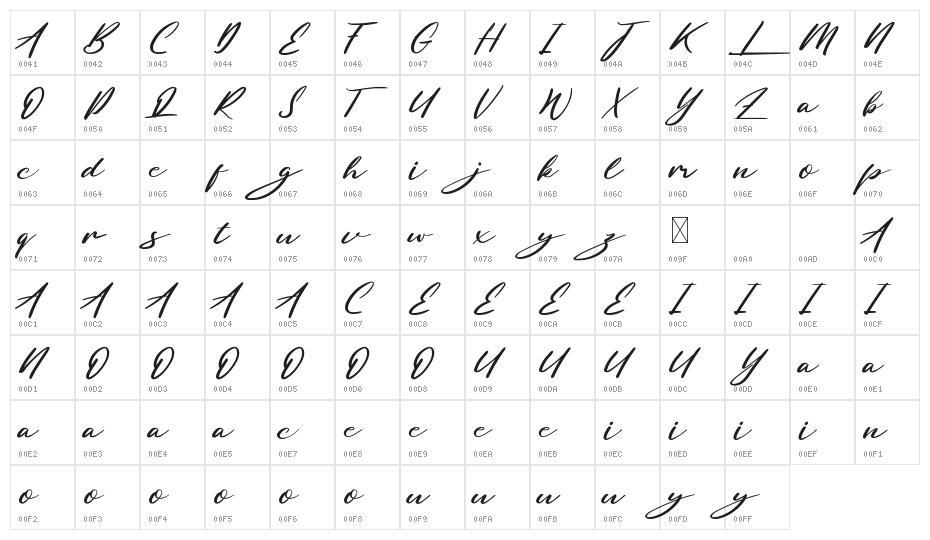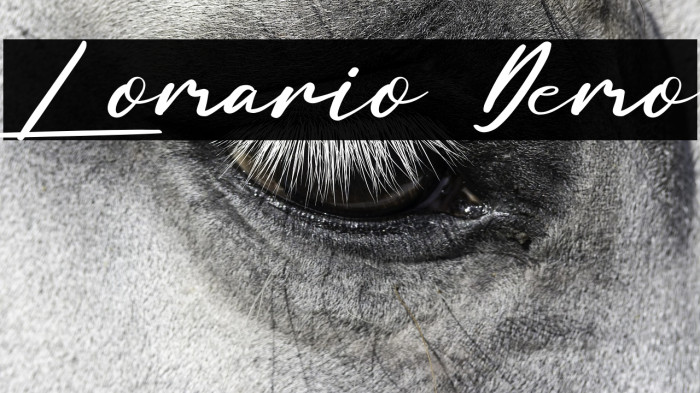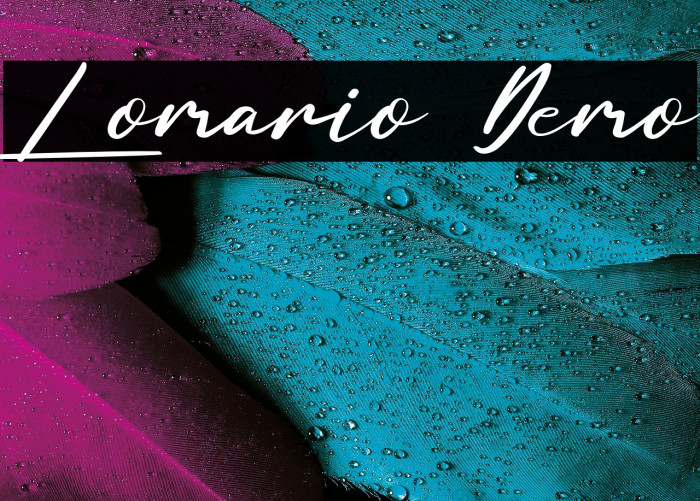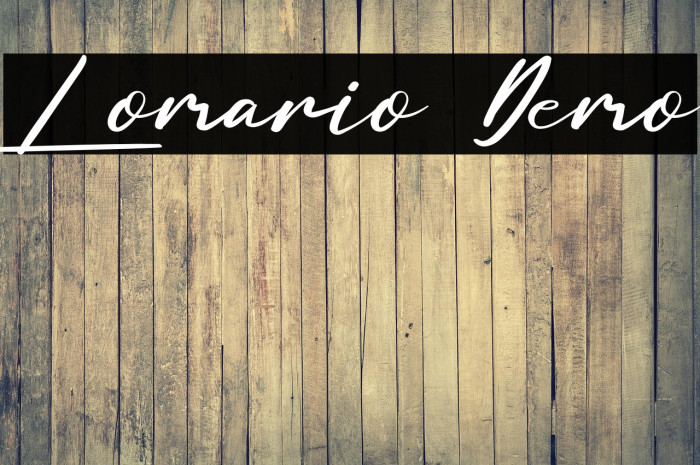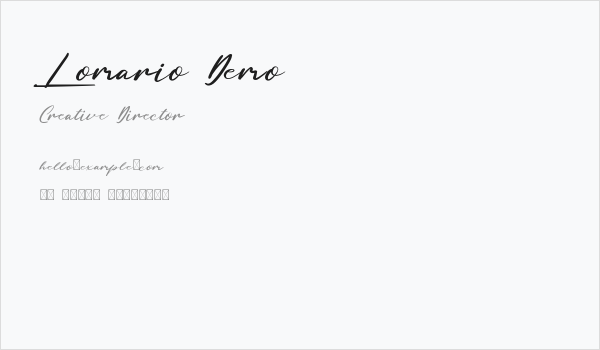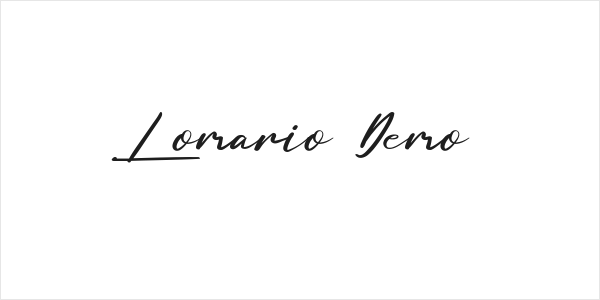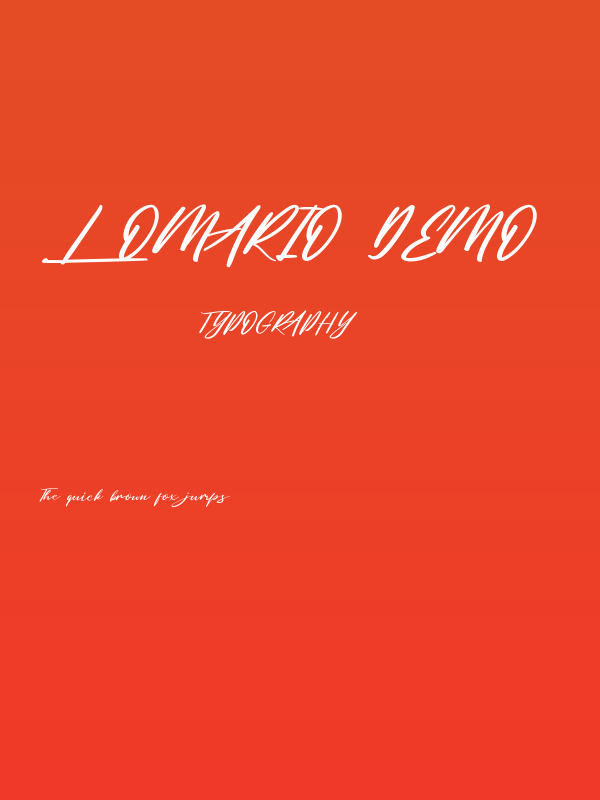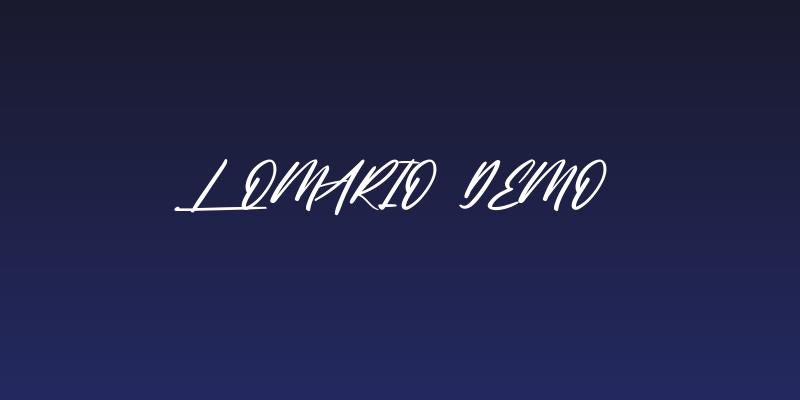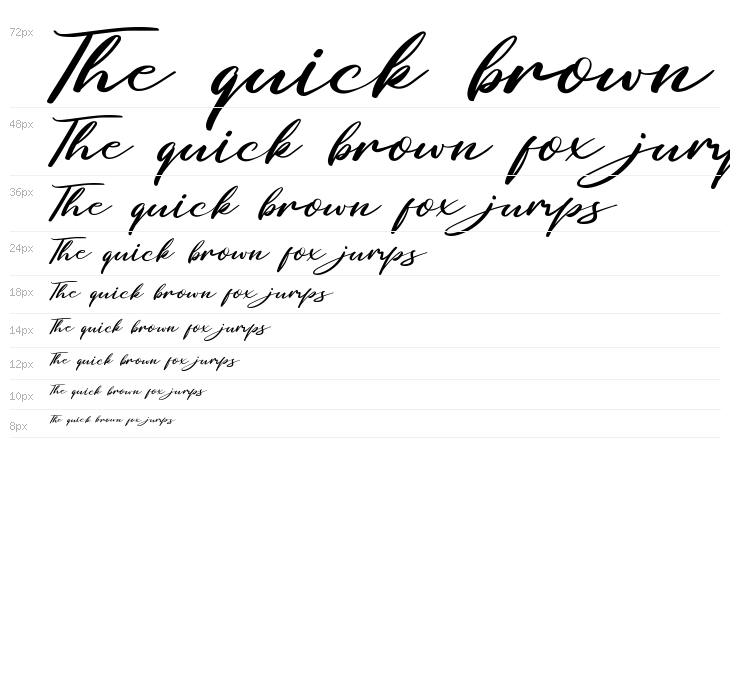
Lomario Demo Font
Lomario Demo Description
A dynamic and expressive script font with a handwritten style, featuring fluid strokes and a modern aesthetic.
| Use Case | Logos, Headlines |
| Proposed Projects | Invitations, branding, social media graphics. |